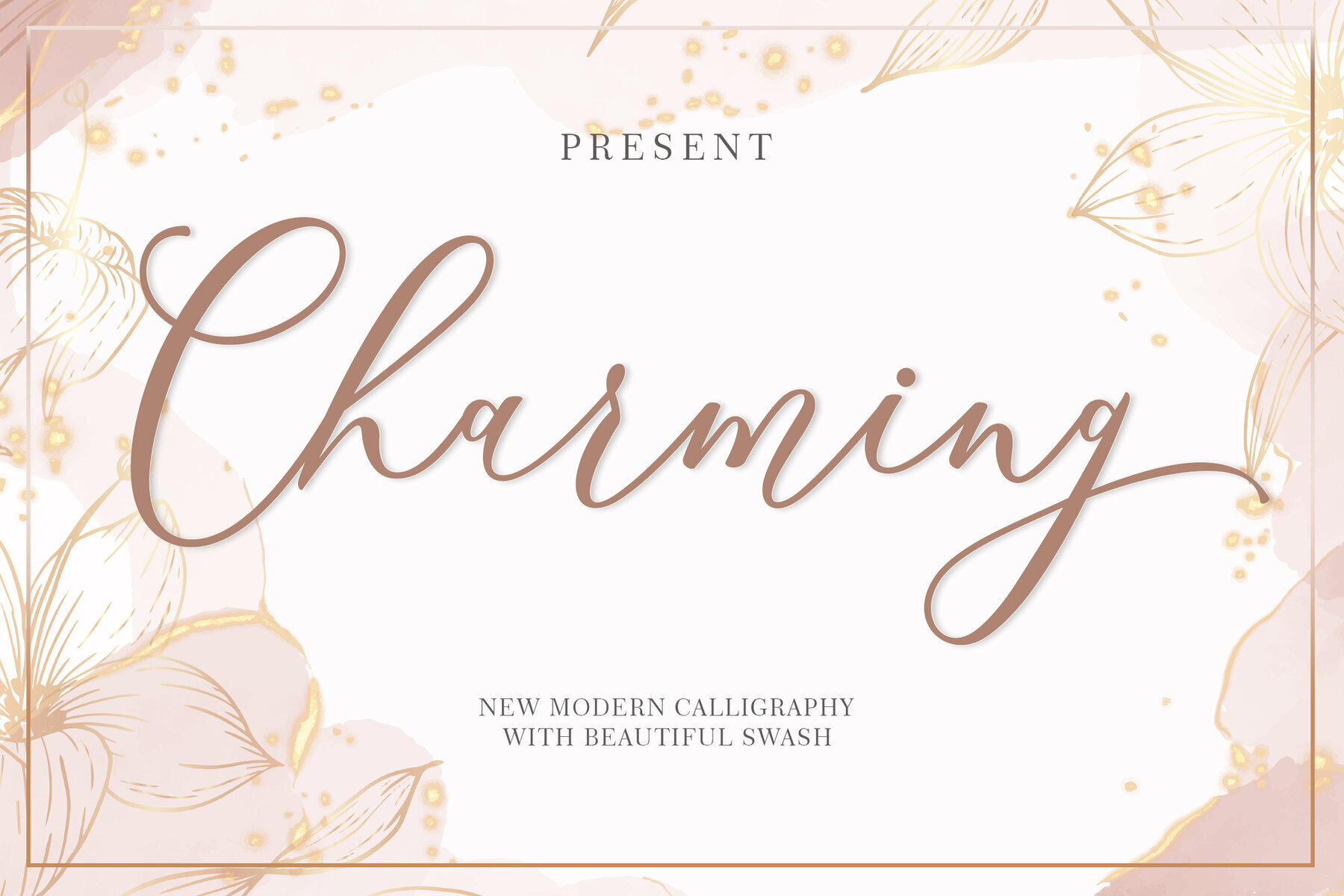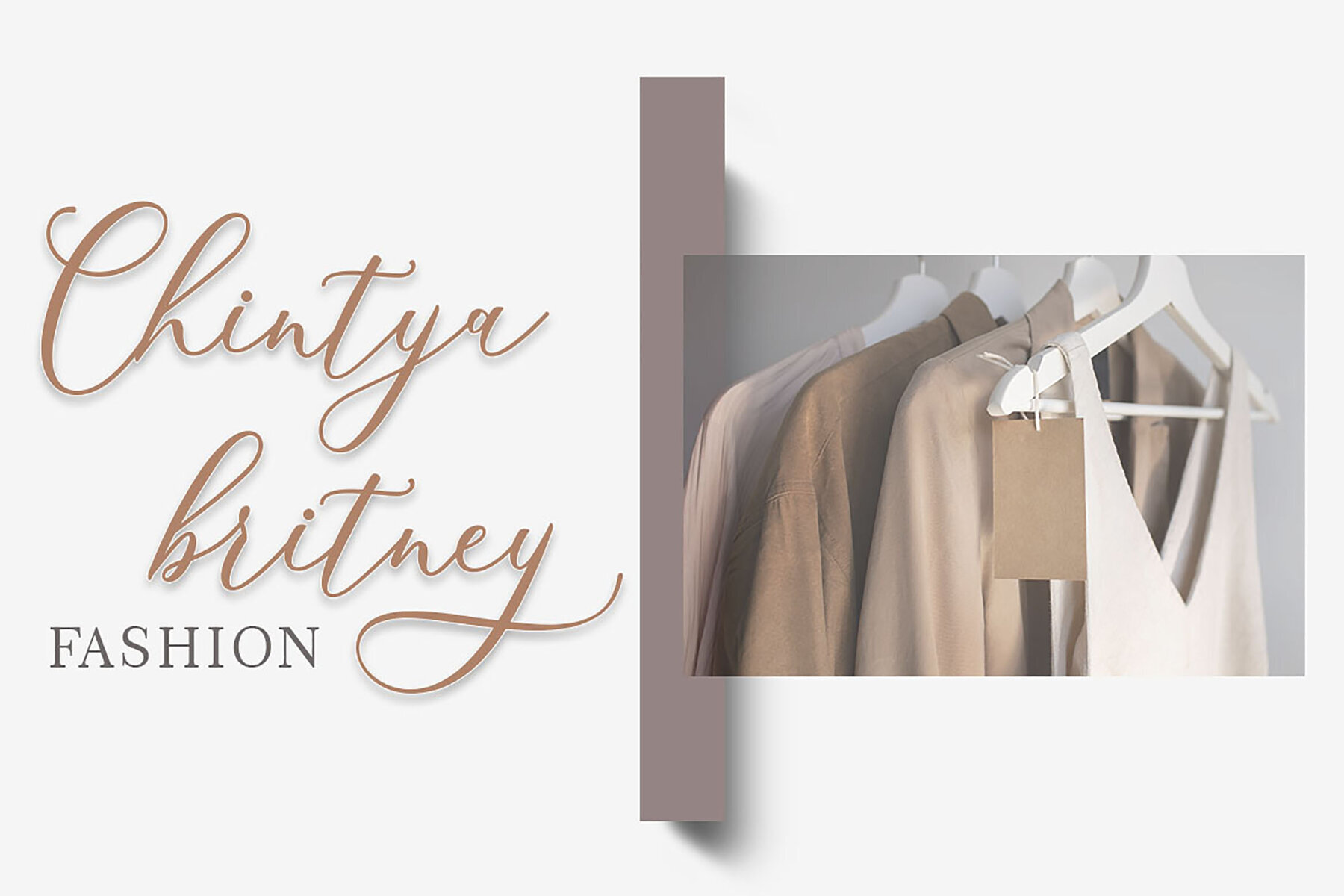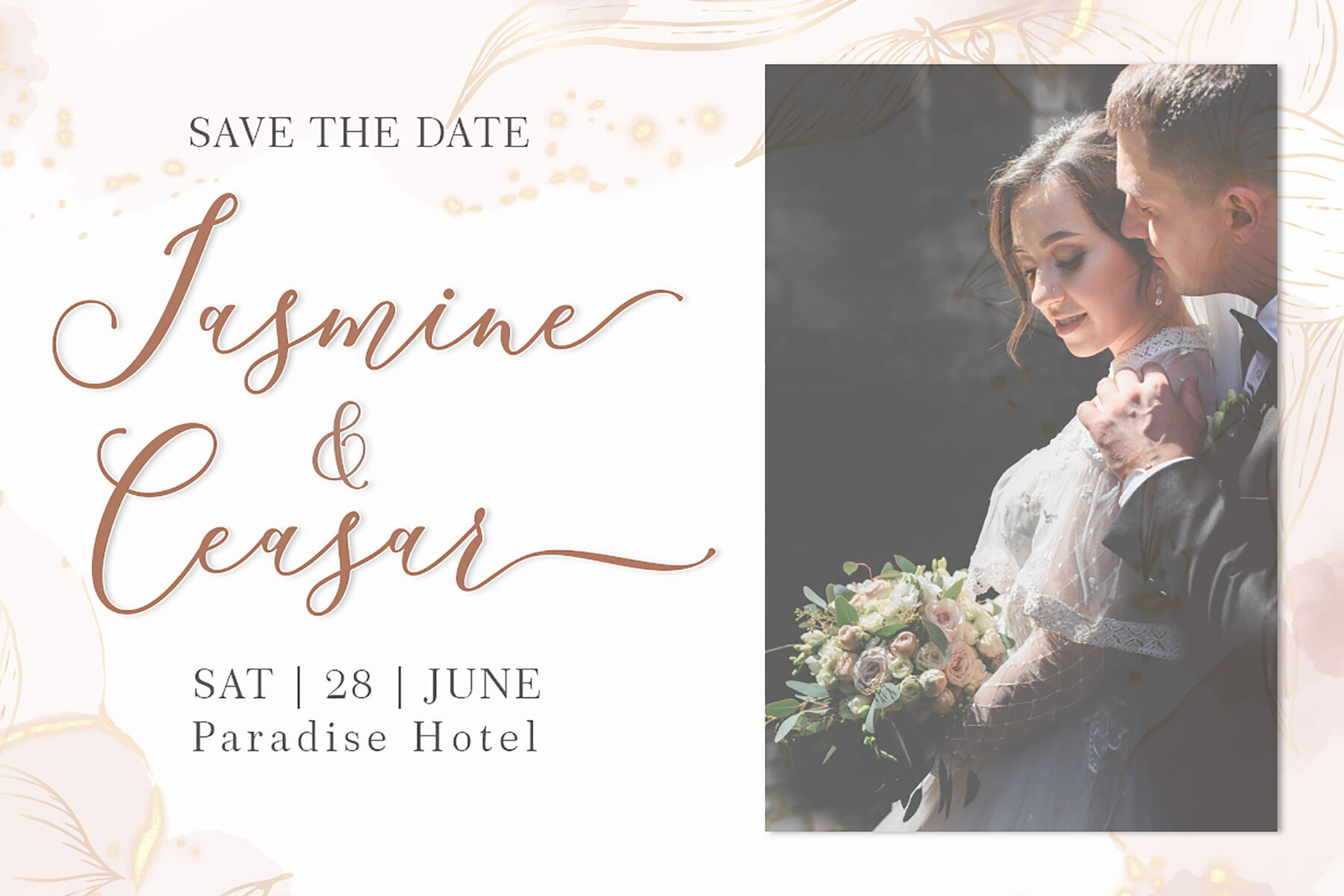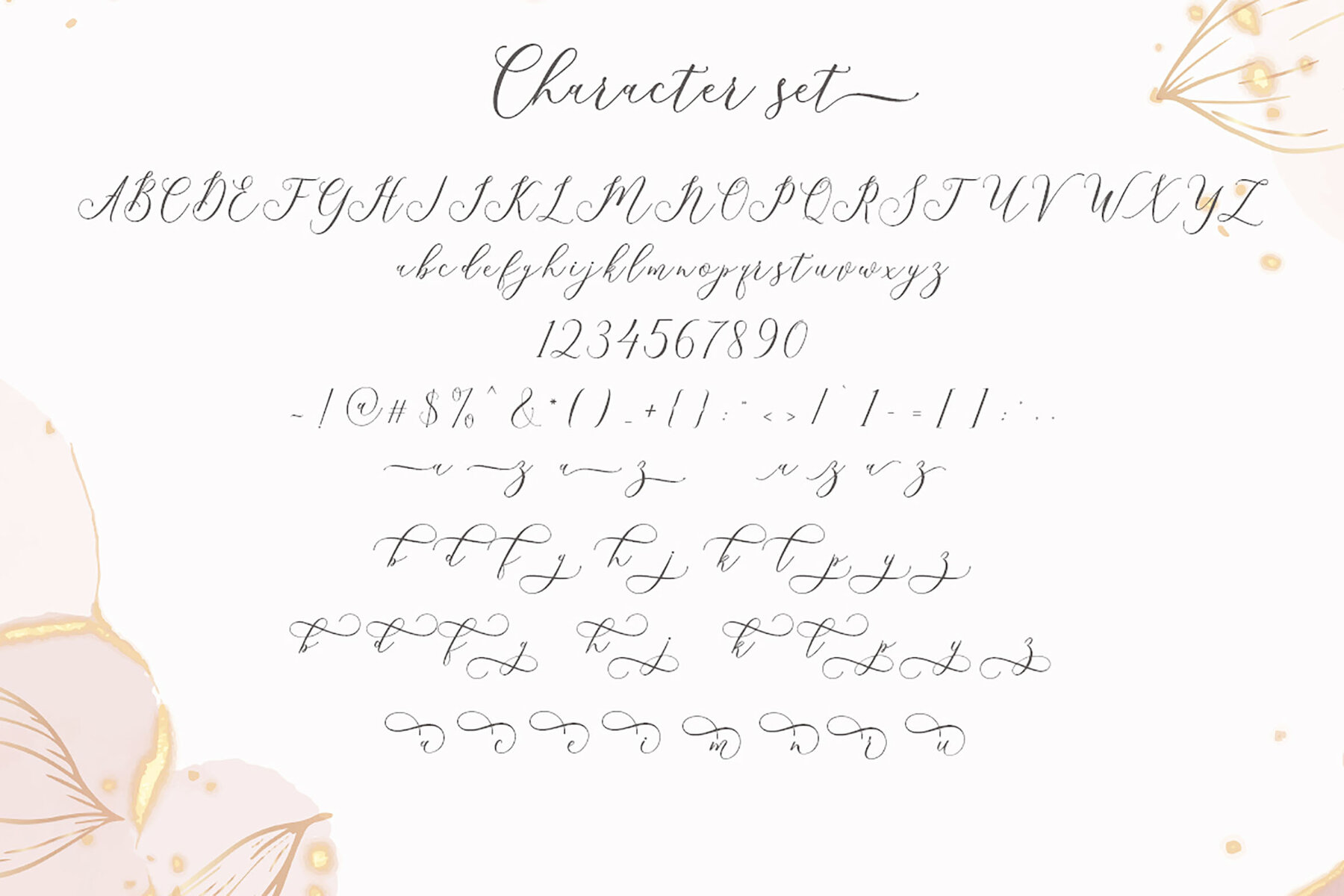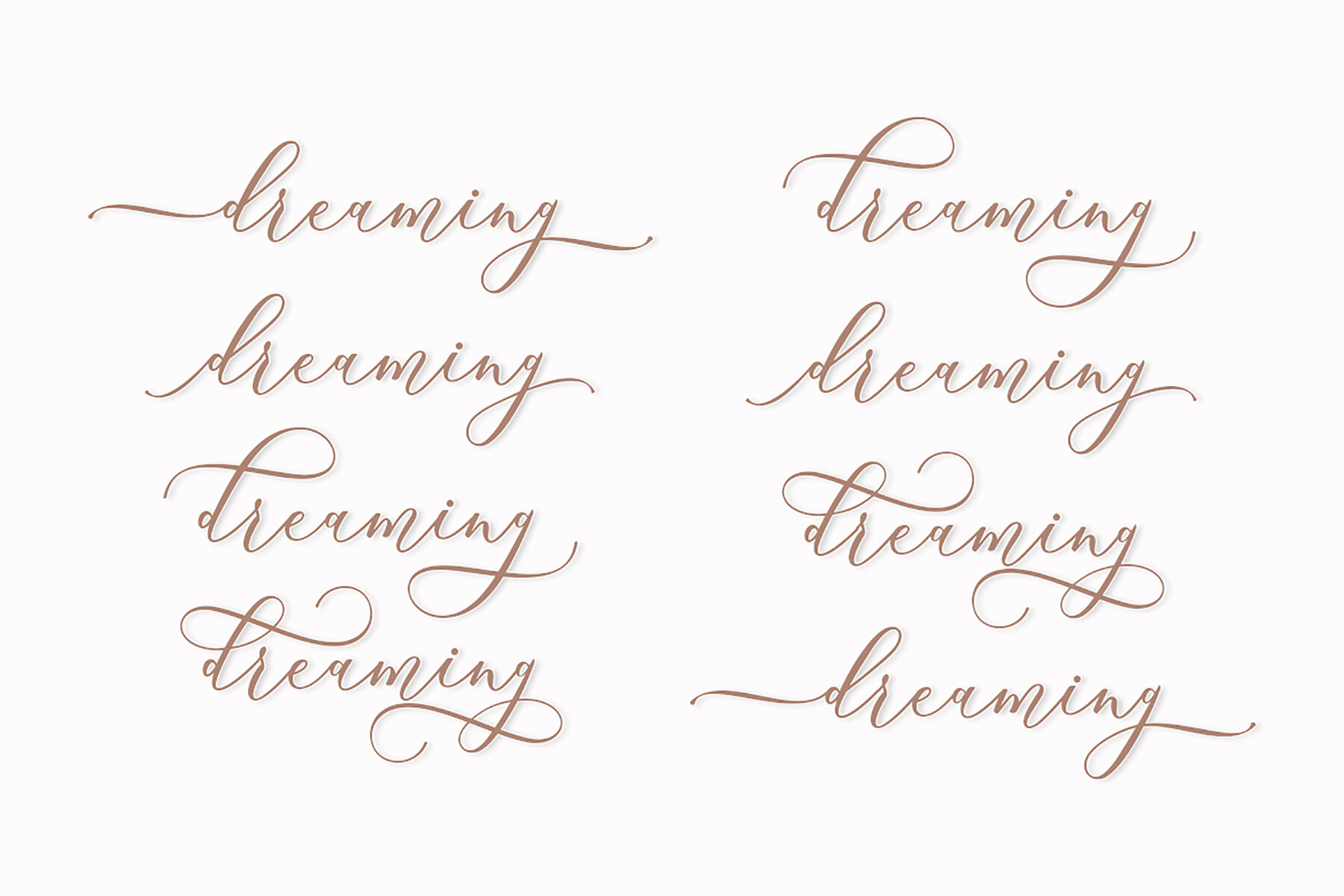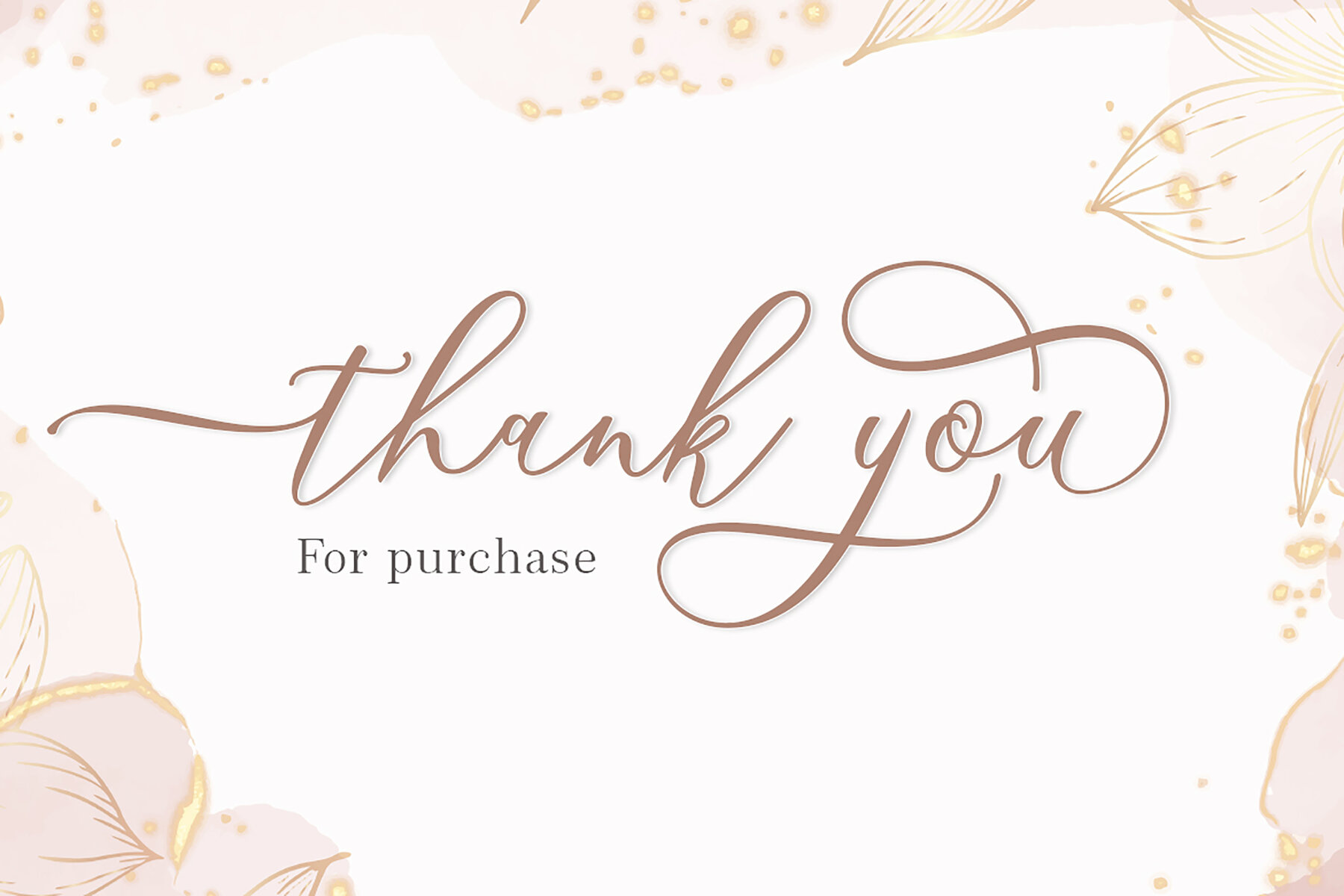
Charming Font
Charming Regular
Embrace the art of lettering with Charming, a font that offers a rich tapestry of over 300 glyphs for the discerning designer. Crafted to cater to the needs of creative professionals, this font is a versatile addition to any project, infusing elegance and sophistication into your designs.Charming: A Delicate Typeface with Creative Versatility
Let Charming add a touch of elegance to your digital or print designs, offering a fluent blend of tradition and modernity. Whether you're crafting a logo, brochure, or digital design, this font allows for unparalleled creativity and expression.